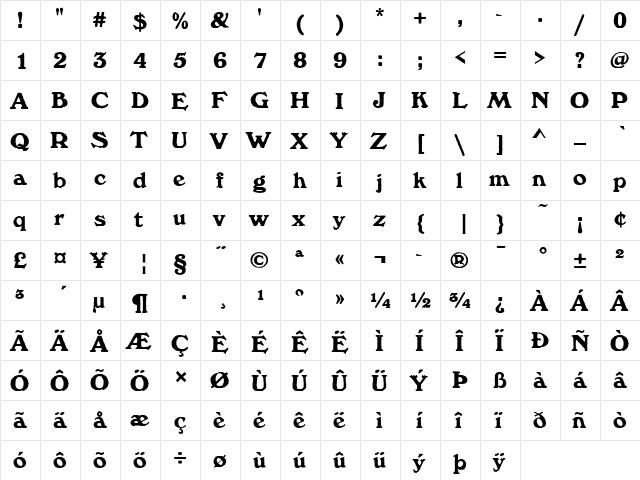
Windsor Antique D Bold Font Preview
Windsor Antique D Bold
Design Context for Windsor Antique D Typeface
Windsor Antique D has the warm character of retro typography — evoking diners, record sleeves, and the golden age of print advertising. Its bold stroke weight gives it real presence on the page.
Ideal for diner signage, record shop branding, 70s/80s-themed projects, and heritage product labels.
Font Pairing: Combine Windsor Antique D with a simple slab or neutral sans — period-accurate companions reinforce the vintage feel without competing for attention.
Pro Tip: Lean into Windsor Antique D's period character by pairing it with aged paper textures, muted colour palettes, and vintage illustration styles.